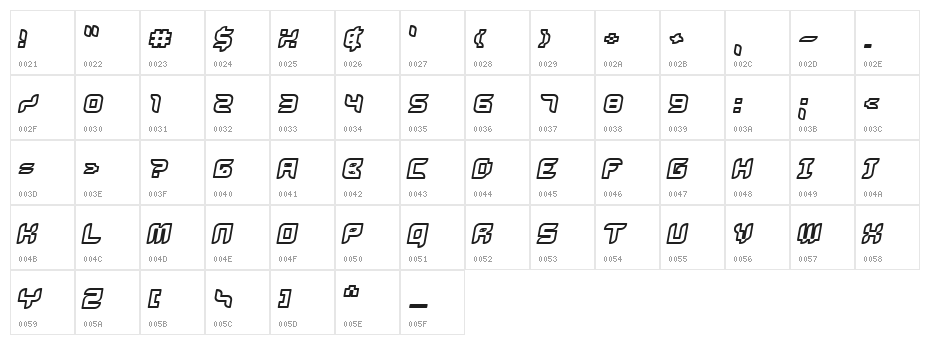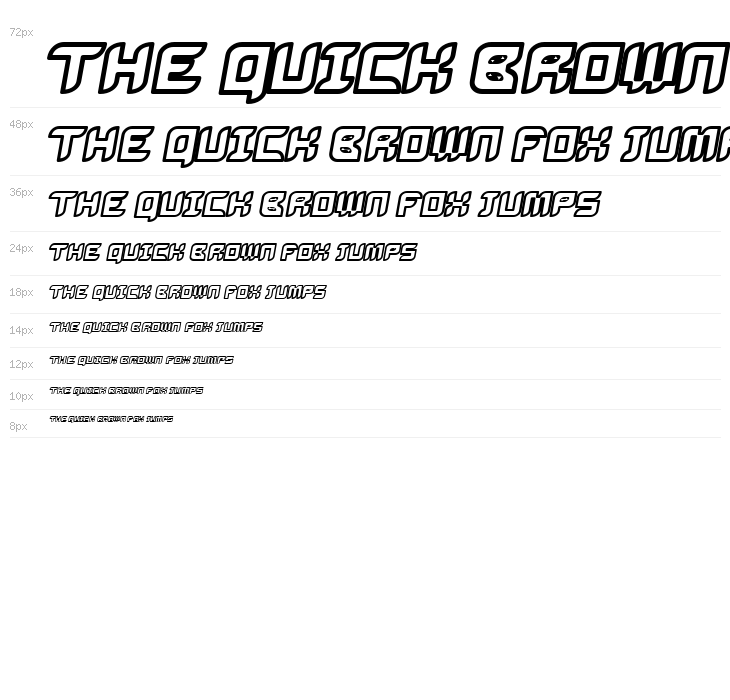
Bug2K Oblique Font
Bug2K Oblique Description
This font features a bold, futuristic design with a distinct outline style. The characters are slightly slanted, giving an oblique appearance that adds dynamism and movement. The geometric shapes are consistent throughout, with rounded edges that soften the overall look. The uppercase and lowercase letters maintain a uniform width, creating a cohesive appearance. The numerals and special characters follow the same stylistic approach, ensuring versatility across different uses. This font's unique style makes it suitable for projects that require a modern and edgy aesthetic.
Proposed ProjectsIdeal for sci-fi themed designs, video game graphics, tech branding, and modern posters.